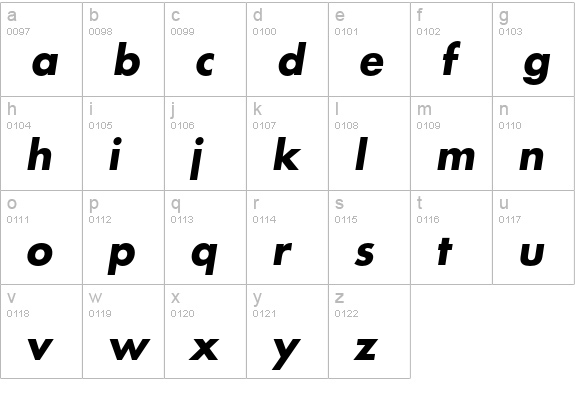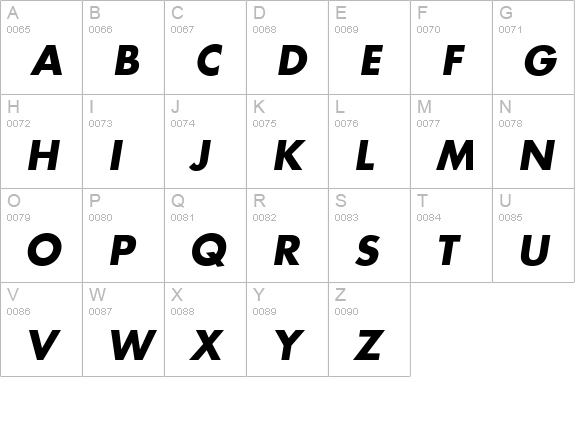
Futura Std Bold Oblique is a strong, high-contrast, italic variant in the Futura typeface family \xE2\x80\x94 well suited to headlines, attention-grabbing titles, and strong calls-to-action.
Futura Std Bold Oblique font exudes a sense of modernity and sophistication with its sleek and dynamic design. The bold and oblique style adds a touch of flair and uniqueness to any text, making it stand out in any project or design. Its clean lines and geometric shapes give it a timeless appeal that is both versatile and stylish. This font is perfect for conveying a sense of strength and confidence, making it ideal for headlines, titles, and branding. Whether you're designing a poster, logo, or website, Futura Std Bold Oblique font will make a bold statement and leave a lasting impression. Best of all, this font is available for free download at FontsMarket.com. So why wait? Add a touch of modern elegance to your designs with Futura Std Bold Oblique font today!